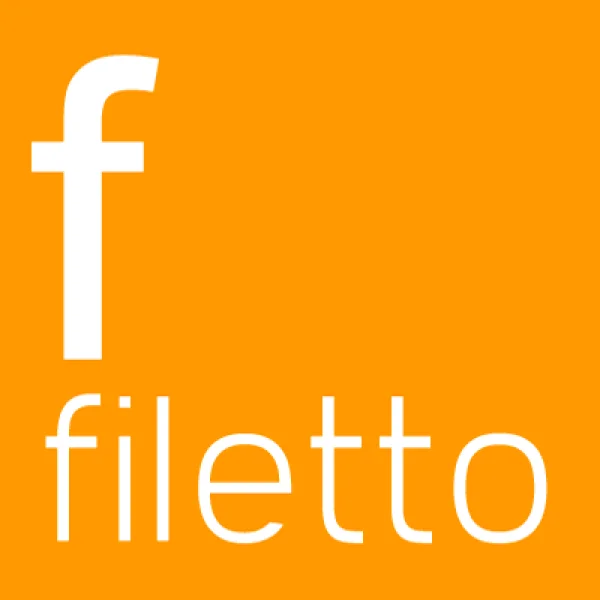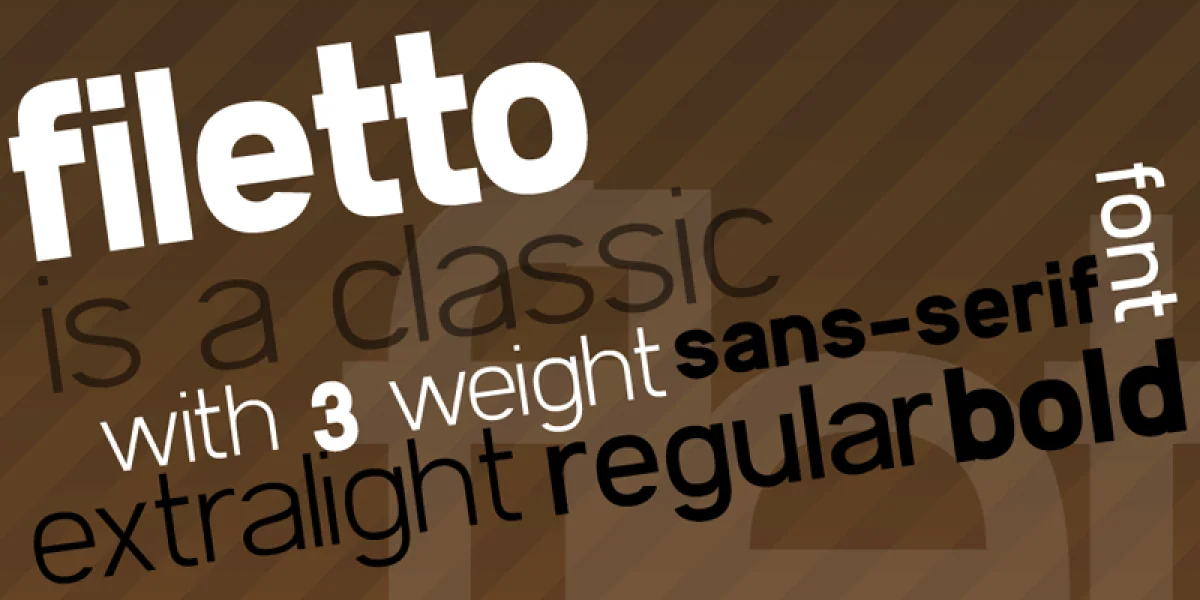
Filetto is a neo-grotesque sans serif typeface loosely inspired by the design of DIN 1451. It’s been designed for maximum legibility, and its broad, square shapes are meant to give a confident and positive feeling to your messages. Studio Kmzero has developed Filetto for its own identity in 2010, developing the older “Cibreo” font.